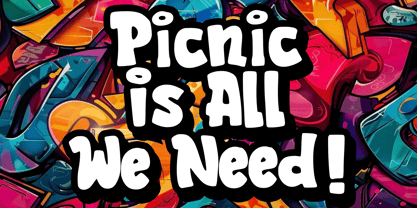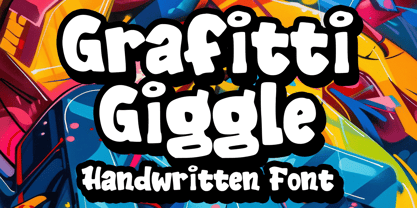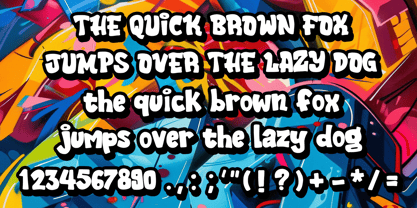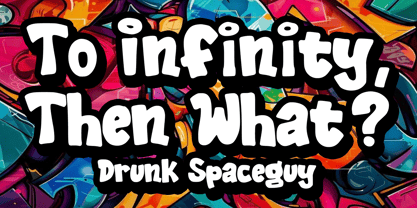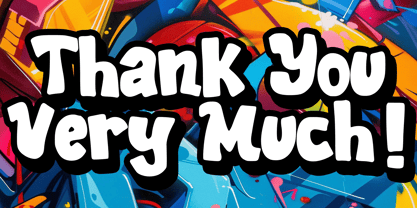
Graffiti Giggle
The Graffiti Giggle Font Family was designed by Gabriel Valentinus and published by Mvmet. Graffiti Giggle contains 1 styles. More about this family
Introducing Graffiti Giggle, a daring and dynamic display font inspired by the rebellious street style of graffiti. This versatile typeface effortlessly infuses its wild charm into a variety of applications, from clothing designs and book covers to street art projects and greeting cards. Graffiti Giggle is an ideal choice for stickers, banners, and posters that demand a bold and playful twist. Let Graffiti Giggle be your secret weapon in crafting visually stunning designs that radiate fun and cheerful energy, making it perfect for branding, web design, and editorial projects alike!